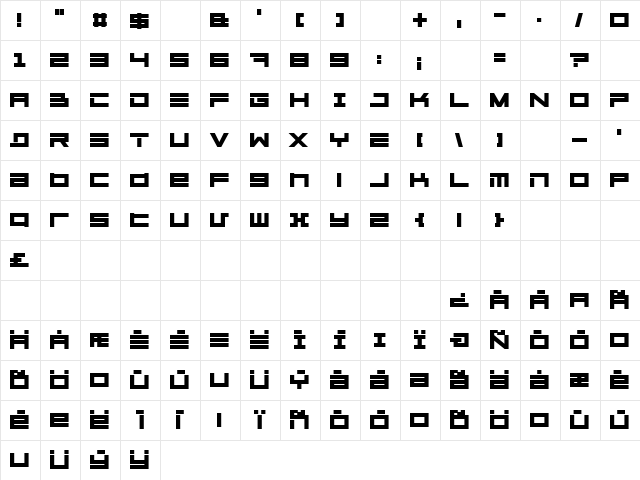
Megaton Extras Heavy
Design Context for Megaton Extras Typeface
Megaton Extras takes a measured approach to typography — its balanced proportions and neutral character make it a reliable workhorse for both digital and print work.
Pro Tip: Pair Megaton Extras with a font of contrasting weight or personality to build a more expressive typographic hierarchy.